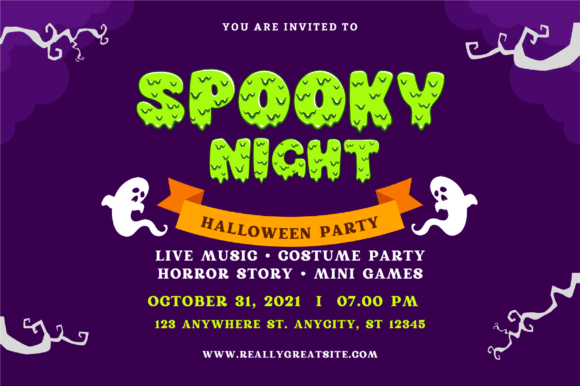
Zombie Drip Font
Zombie Drip is a hauntingly bold font that will send shivers down your spine. This spine-chilling typeface features a unique dripping effect on each letter, giving it an eerie and macabre appearance. With its thick and powerful strokes, Zombie Drip commands attention and creates an atmosphere of suspense and horror.
Perfect for Halloween designs, horror-themed projects, or anything that needs a touch of creepy allure, Zombie Drip adds a bone-chilling twist to your typography. Let the letters drip with fear!